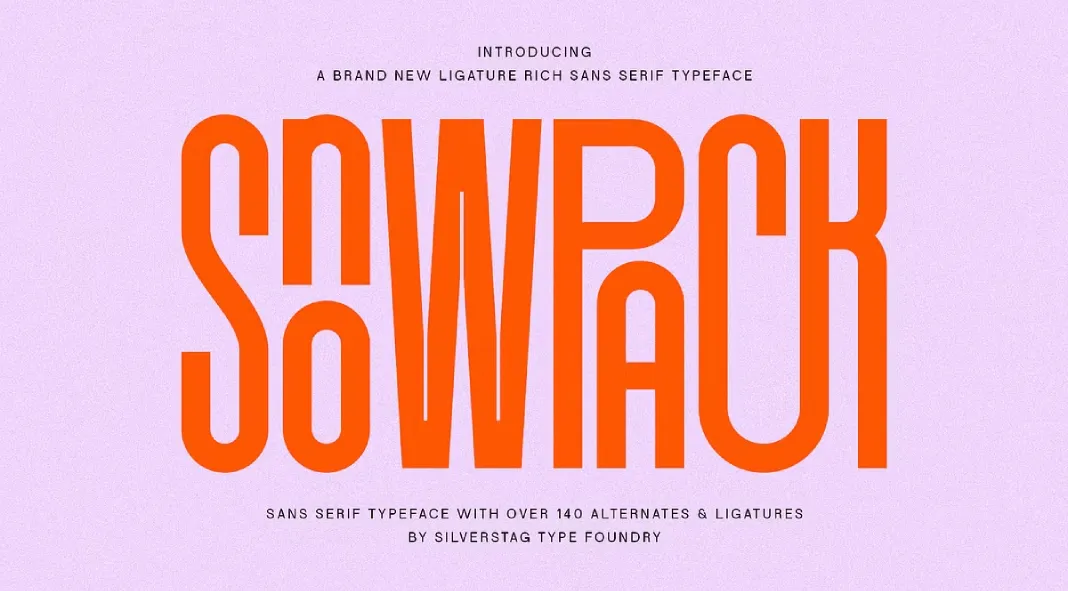
Say hi to SLTF Snowpack, a bold and ultra-condensed sans-serif typeface.
We all know that fonts are more than just letters. They’re the voice of your design, the personality of your brand, and the atmosphere you’re trying to create. And that’s where Snowpack by SilverStag Type Foundry enters the chat. Have you ever considered how much a font can do? So, imagine this: you’re knee-deep in a branding project, working on a poster that needs to scream “impact,” or crafting a logo that’s both sleek and memorable. You need something that feels cutting-edge, but also has a kind of timeless appeal. You’re trying to achieve a delicate balance, a visual tightrope walk, right? That’s the challenge, isn’t it? Well, Snowpack is designed to be a versatile choice.
The unique selling point of this font is its ultra-condensed sans-serif style. Now, condensed fonts can sometimes be a bit tricky. They can look cramped or awkward if not handled right. But Snowpack? It takes the concept and elevates it. It’s not just squished letters; it’s controlled, bold compression. Each letterform has been carefully considered. It makes an impact, even in tight spaces. Think of it as a visual shout in a confined area – powerful and focused. What do you make of this concept?
Here is everything you need to know about this stylish typeface.
Let’s get into the details. The designers didn’t just slap together a condensed font and call it a day. They added over 140 ligatures. That’s a lot of visual options. Ligatures are these beautiful letter combinations that flow seamlessly together. They elevate text from ordinary to art. And the alternates? They are another way you can add your creative vision. These are different versions of the characters. It’s like giving you a whole toolbox of unique design elements. It’s not just about picking a font, it’s about crafting a visual language. Do you think the variety can give some life to your work?
And we’re not done yet. Consider the global aspect. Snowpack has support for over 90 languages. Think about that for a second. It means you can use this font pretty much anywhere in the world. You can connect with a global audience. That kind of inclusivity is quite significant. It shows how much thought the developers put into this font. The developers clearly wanted to make this font versatile and relevant for everyone.
Now, let’s get down to the styles. It comes in four! You have Regular, Regular Outline, Round, and Round Outline. It’s like getting a different flavor, but they are all working from the same base. The Regular version is clean and sharp. It’s perfect for a minimalist approach. The outline gives you depth. It also allows for layering and creating dimension. The Round version softens things up. It adds a touch of playfulness. And the Round Outline, well, you get the best of both worlds. With these options, the sky is the limit. Which one do you see yourself using the most?
Think about how this font might show up in the real world. Imagine a trendy travel blog with headlines in Snowpack. Or think of a sleek tech company using it for its branding. Picture a modern art exhibition using Snowpack on the poster. It has that urban, sophisticated edge that just feels current and relevant. It’s not just a font; it’s a statement of style. It’s very versatile.
And think about those minimalist designs. You need a lot of impact, but without taking up too much space. Snowpack is ideal. That ultra-condensed style is a visual cheat code. It maximizes space without sacrificing presence. It is the perfect balance of efficiency and impact. It delivers on both fronts. That’s quite an accomplishment, don’t you think?
Snowpack isn’t just another condensed typeface that is gathering dust in your font collection. It’s a versatile tool for creators. It is a visual system that can adapt. It can change and suit whatever project you are working on. It can be polished and sharp. It can also be playful and creative. This is all based on the style you choose. And you can play with those Outline versions to add a sense of dimension. That’s what makes this font shine. Is this something you need for your next project?